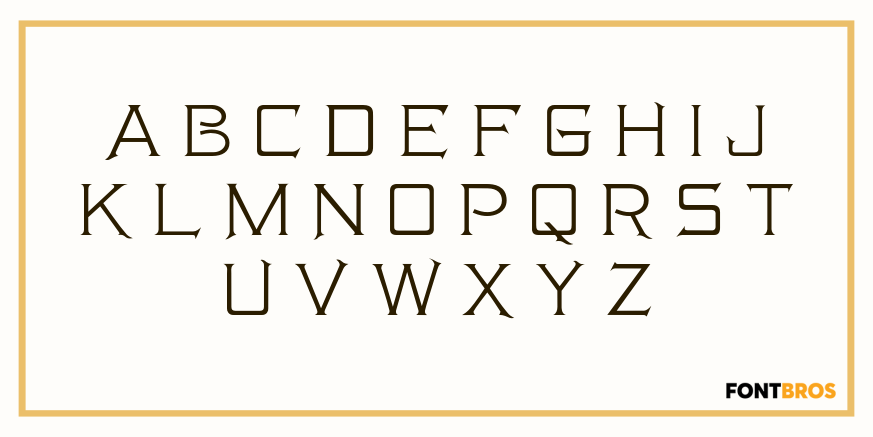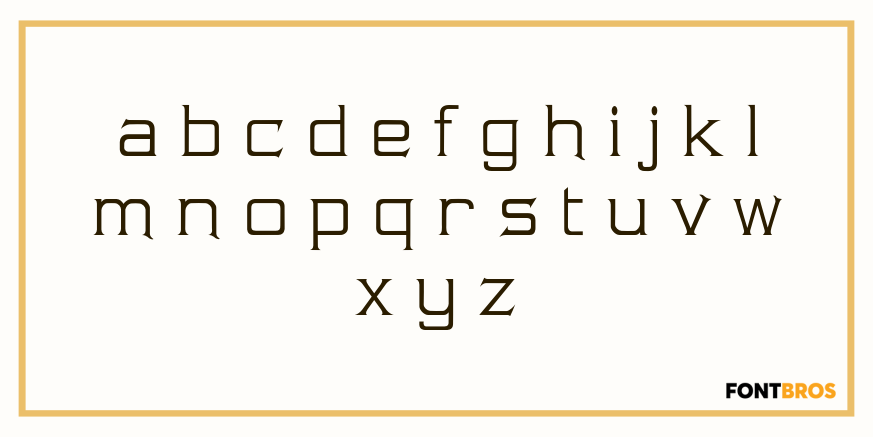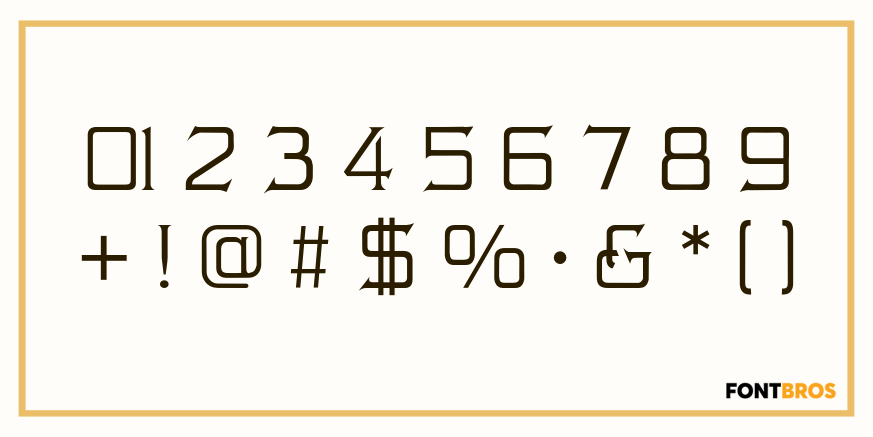
Dangerfield
Font Family by Solotype
The Barnhart Bros. & Spindler foundry put out a caps-only face called Dante. We liked it, but felt it needed a lowercase. The result here is a rather nice square design, which has become a personal favorite.